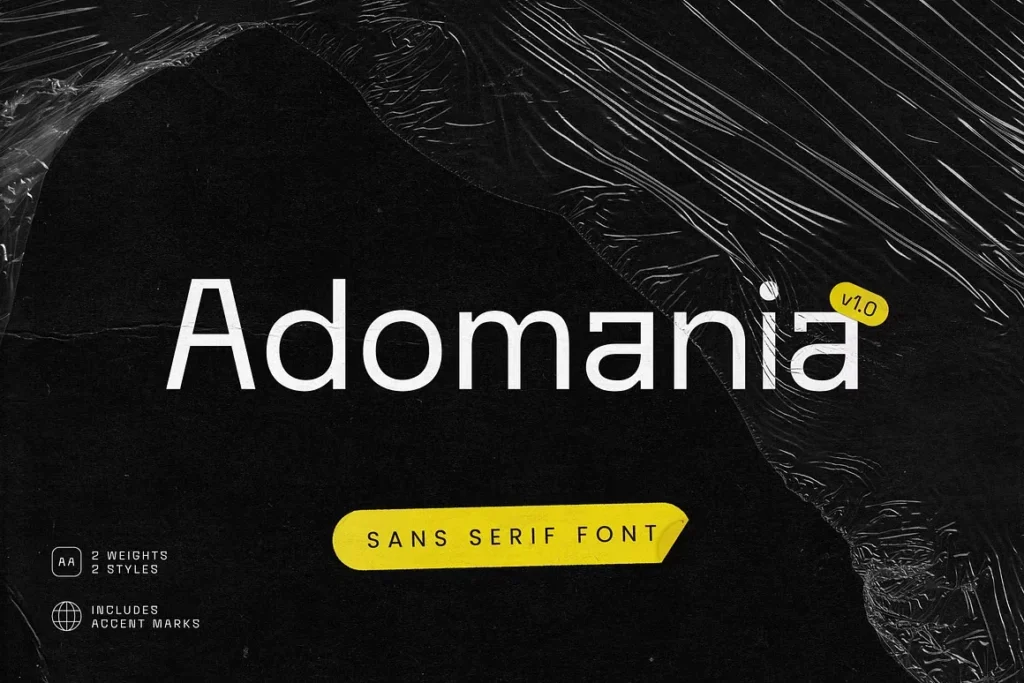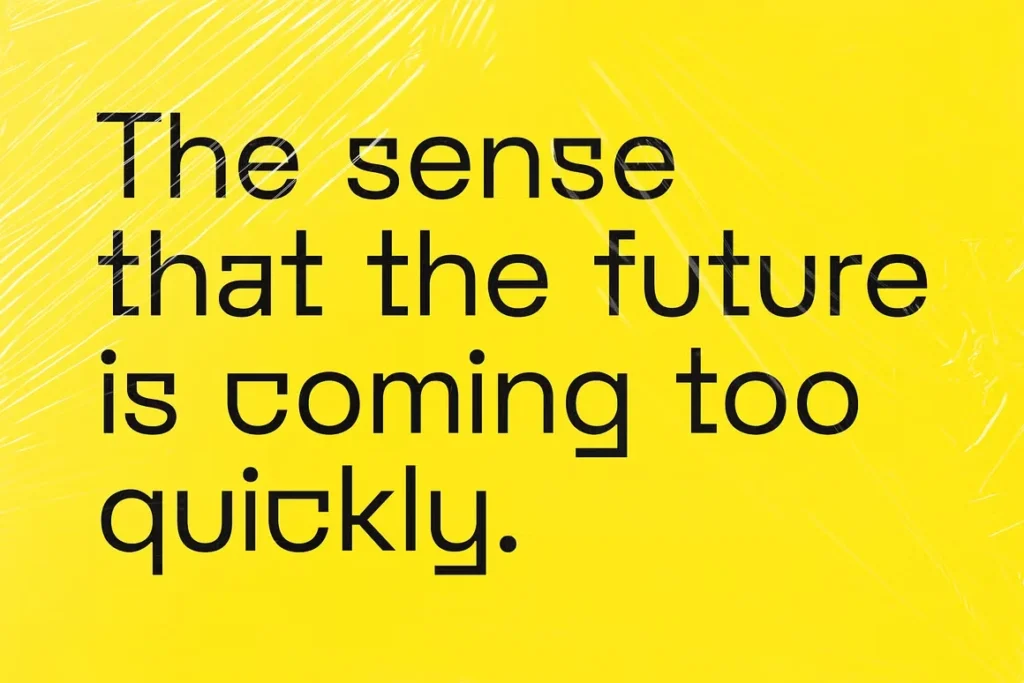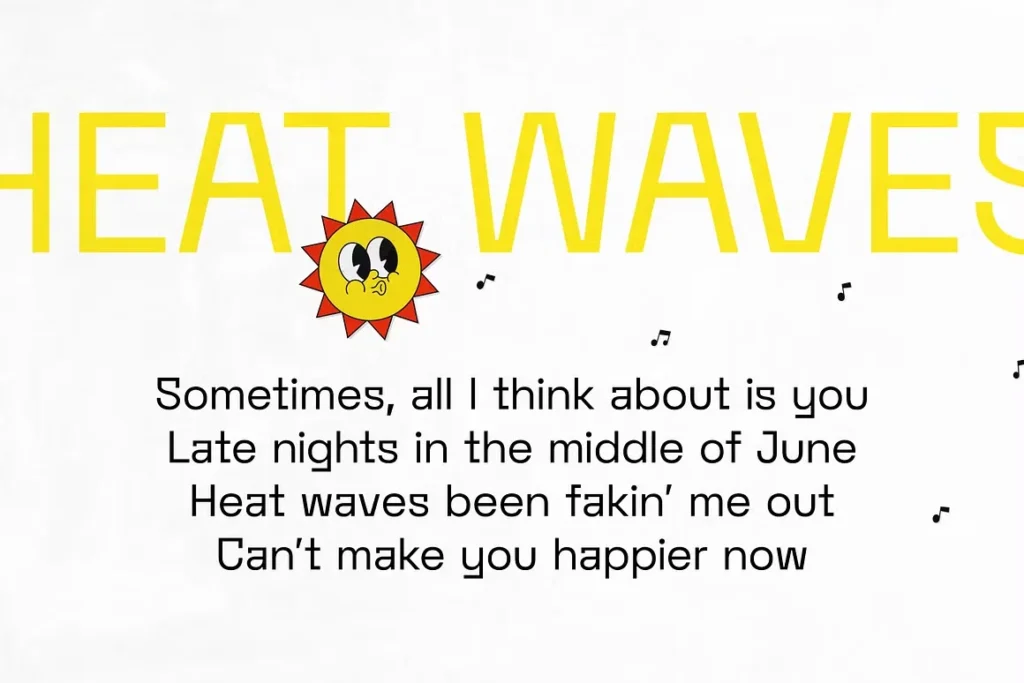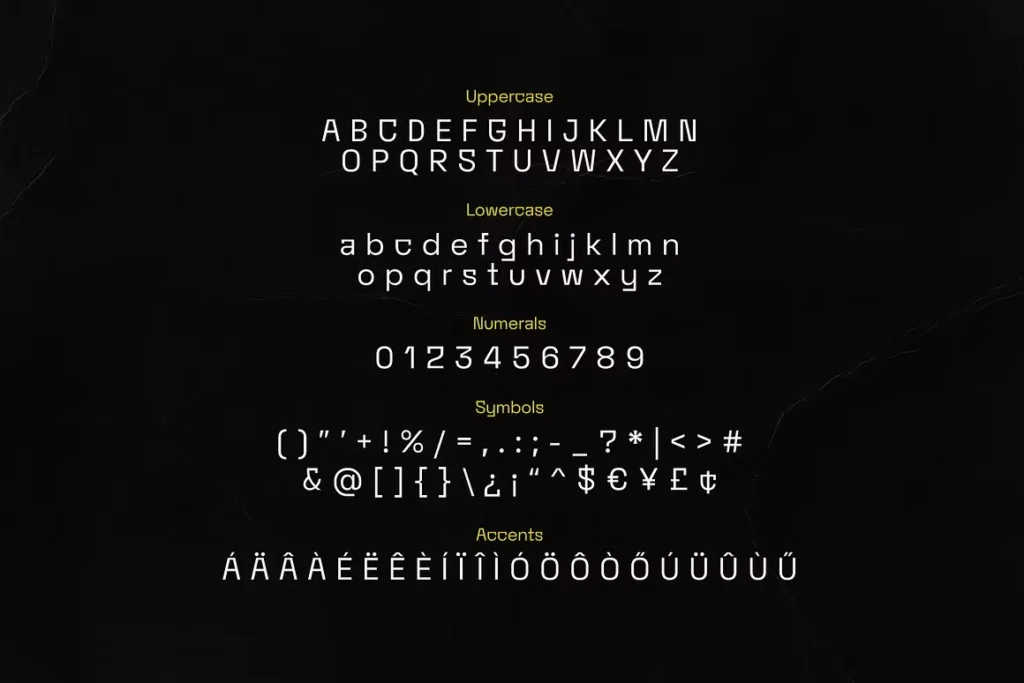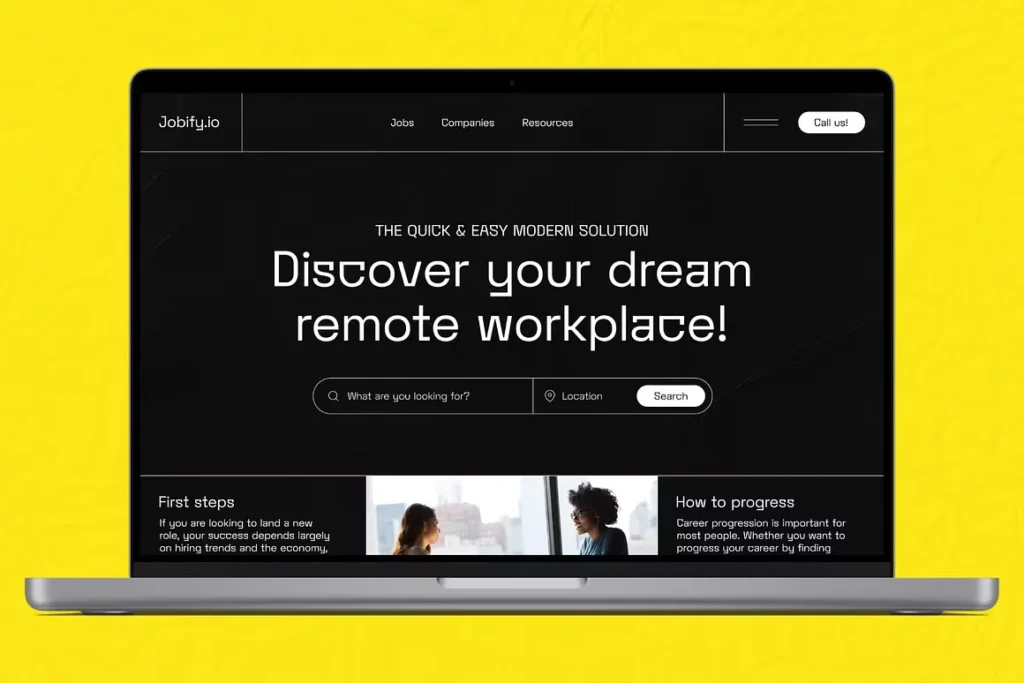
Adomania Font
About Adomania Font
I’m a typographer and graphic designer always searching for fonts with character. While updating a brand’s digital look, I found Adomania Font through a type roundup from the Obscure Fonts Foundry™. It immediately stood out. I tested it on a new logo and supporting graphics. The clean geometry paired with just enough edge gave it personality. It brought balance to a layout that needed a modern, sharp style with a little twist. This review is a quick dive into how it performed and why I think it’s a solid pick for creative teams.
Adomania Font is a sans serif font with a modern and experimental feel. It was designed by Obscure Shop and released as part of their Obscure Fonts Foundry™ collection. It comes in 2 styles—light and bold—with both weights designed to match across projects. This font family was created for flexibility. Whether you’re working in Illustrator, Photoshop, or placing text on a simple page layout, it holds up. The overall look is geometric, but it doesn’t feel stiff. Instead, the design introduces just a bit of spice to standard minimal typography. The name “Adomania” fits the vibe perfectly. It’s about the sense of the future arriving early, and this typeface gives that energy. The otf file was easy to install, and the appearance was consistent across platforms. It worked well in both Adobe apps and basic tools. This font isn’t loud, but it’s definitely unique.
What makes Adomania Font really shine is its structure. The geometric design with clean lines feels futuristic but readable. The spacing is tight enough for headings, yet the text stays open and legible. Each character shows the care behind its shape. The bold style has impact, while the light version creates space in more relaxed layouts. I used both across brand mockups, and the width matched well with supporting graphics. Another strength is the plenty of symbols and accents it comes with. These extras help with global text coverage, especially in branding for international products. It’s a great choice for branding projects that want to stay modern but not boring. The type works best when paired with simpler body fonts. It’s not a headline-only face either. Short blocks of editorial work, web cards, and UI elements look strong in it too. It offers that fresh addition without overpowering the rest of your design. In a sea of similar sans-serif modern fonts, this one brings a crisp identity.
Where can you use this font?
Adomania Font is ideal for projects that need sharp visuals with a modern edge. It’s great for logos, web design, and short-form editorial work like digital ads or UI copy. I found it perfect for brands trying to feel new without going overboard. It has that uniform appearance with a creative spark. This makes it an easy pick for branding projects that need more life in their typography. If you’re working on style guides or presentations, the clean lines make layout and spacing feel tight and intentional.
You can also use it in product labels, digital posters, and landing pages. The font carries enough style to hold attention in a heading but stays simple enough to support other content. Whether you’re designing for print or screen, the results stay consistent. The installation process was smooth, and the file worked right away in both Mac and PC environments. I tested it in a Photoshop social media mockup and a full-page promo layout in Illustrator. It delivered crisp edges and balanced contrast in both. If you like exploring obscure fonts with functional personality, this is a safe and stylish pick. It’s not a free font, but it’s worth the license for long-term use.